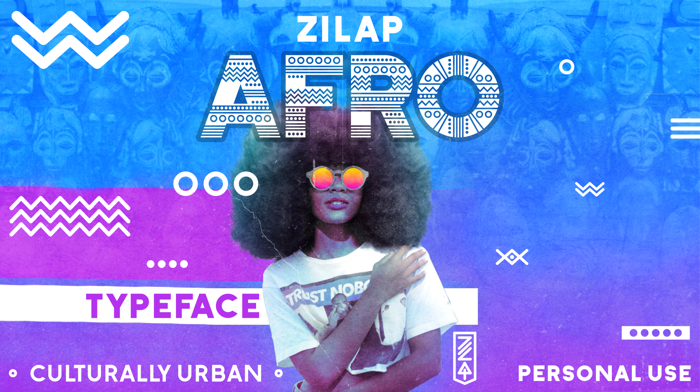
Zilap Afro Font
• ZILAP AFRO: Font inspired by Afro culture, music, customs, art and graphic expressions. This typographic project has a lot of personality and style, so it should be used, creatively in all kinds of print and visual projects.
•Zilap Afro "The expression of a Generation"